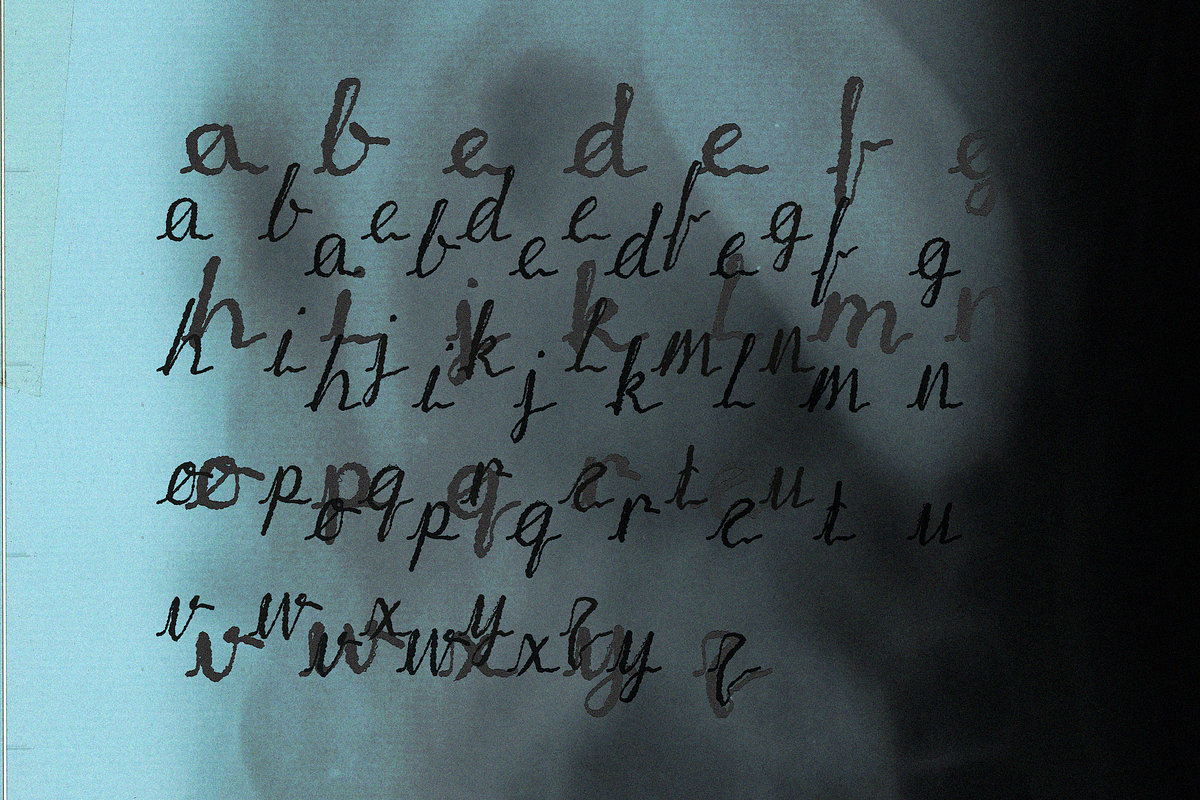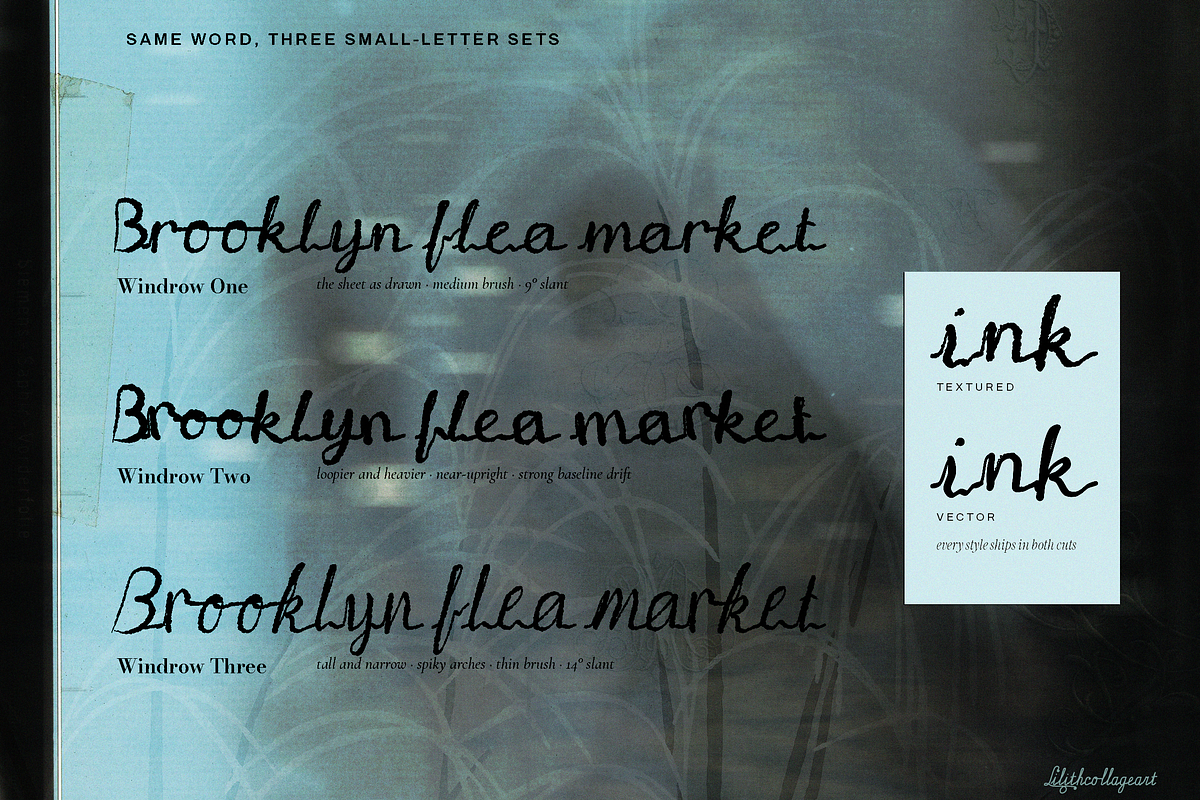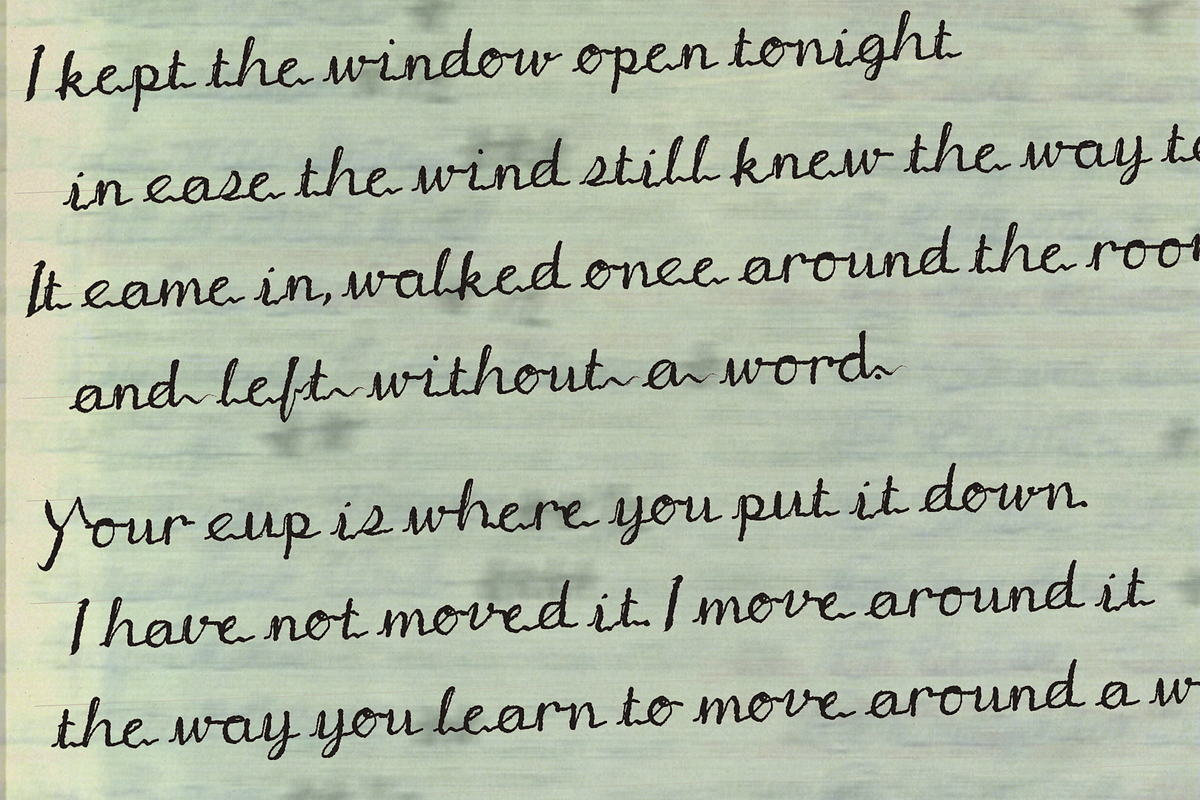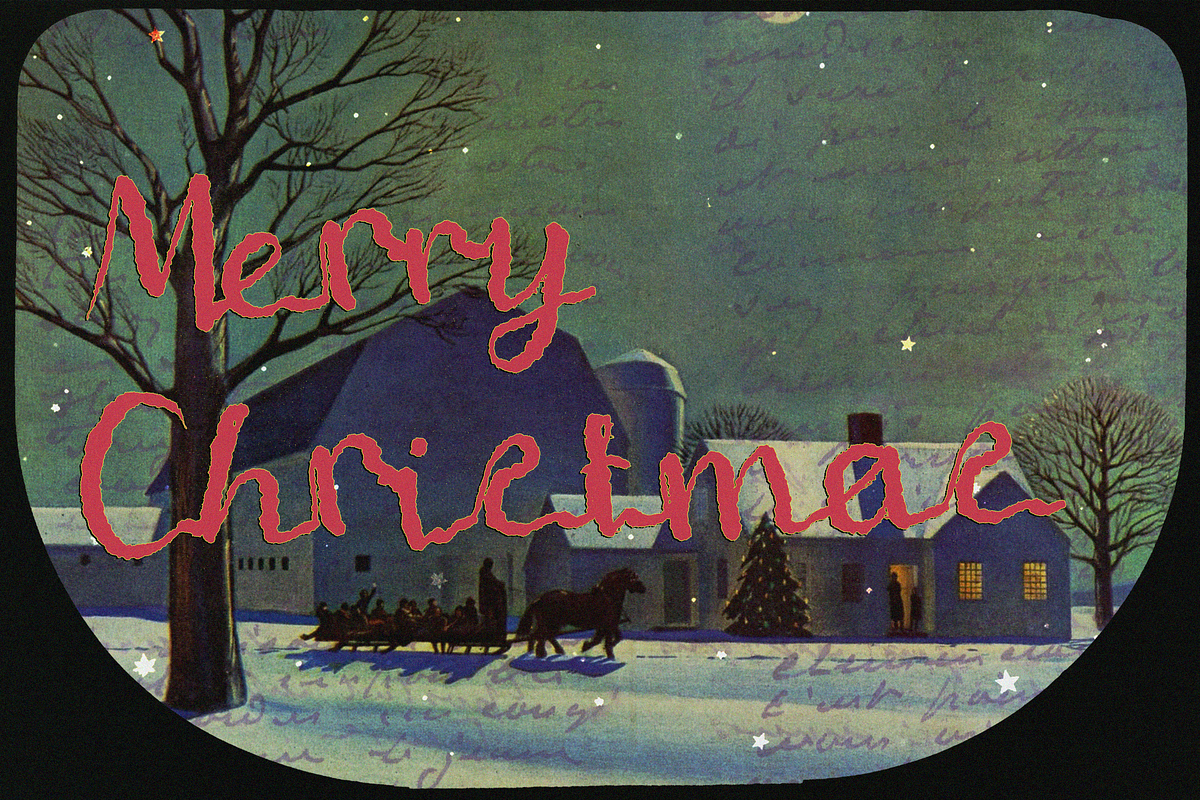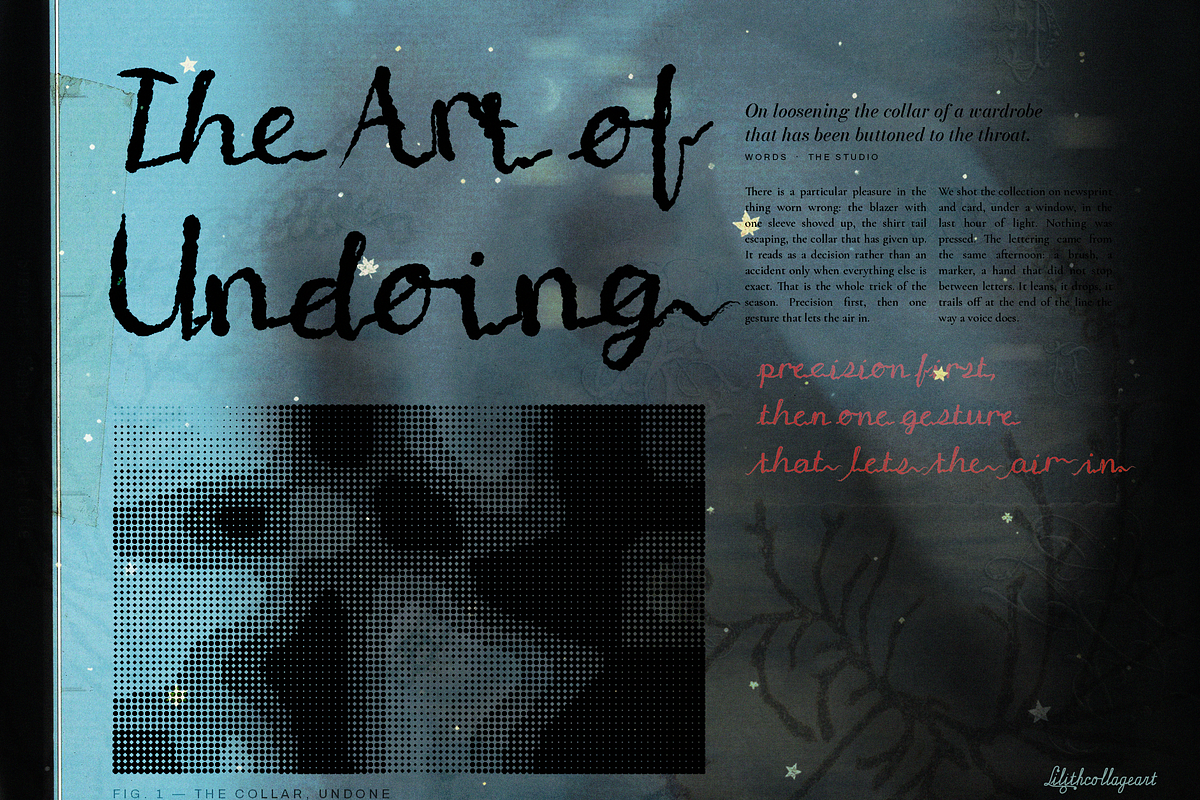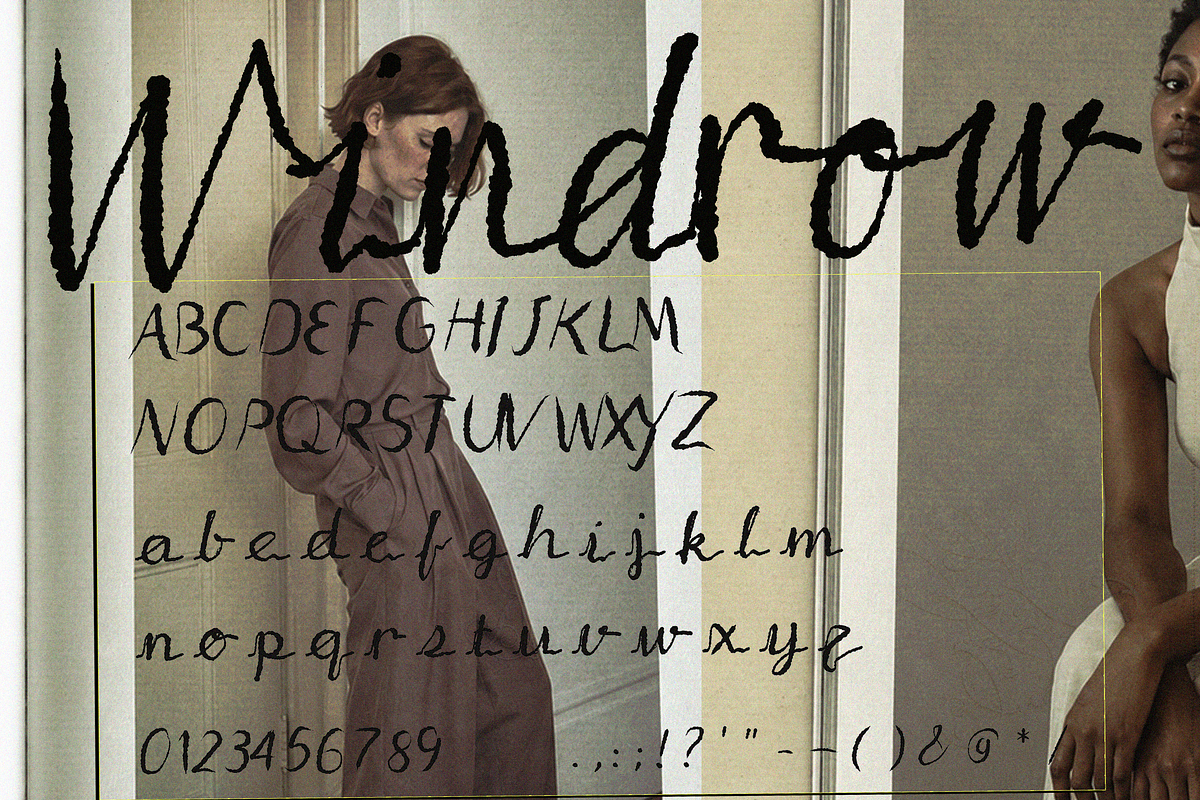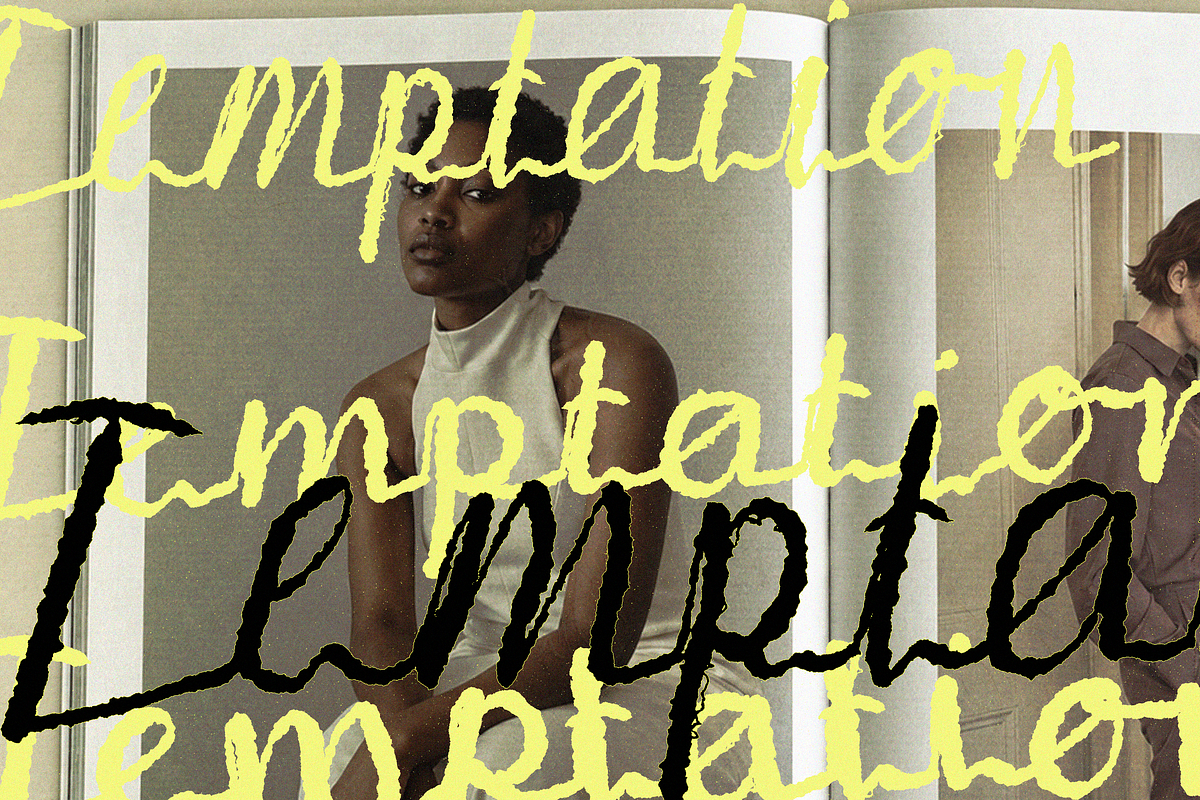
Windrow - Brush Cursive Font Family
Windrow is a brush-drawn connected cursive with the energy of a signature scrawled across a poster: thick-to-thin strokes that swell on the way down and thin on the way up, letters that sit at their own height and tilt, and long tails that sweep in from the bottom-left and trail off to the right. Every capital and every small letter joins the next in one continuous line.
Three hands, two cuts - six fonts
Each style has its own set of small letters, so you can pick the mood:
Windrow One - the original hand. Medium brush, gentle 9° slant.
Windrow Two - loopier and heavier. Looped ascenders, open descender loops, big round bowls, nearly upright with a strong baseline drift.
Windrow Three - tall and narrow. Spiky arches, a thinner brush, a 14° lean.
Every style comes as a Textured cut (charcoal grain, fibrous edges and dust, traced from the original renders) and a Vector cut (the same strokes with smooth edges for cutting machines, embroidery, large-format print and small sizes).
Connected by design
Small letters join at the baseline with no setup. Letters that finish high (b o v w r) hand over at the top, and F O P V W Y do the same, handled automatically by contextual alternates. Capitals link into the small letter that follows; when a capital stands alone or runs in all caps, it keeps its sweeping tail.
Made for
Fashion editorial and magazine spreads, pull quotes, poster and flyer headlines, album and book covers, branding for markets, cafés, florists and vintage shops, packaging, social graphics, wedding and event stationery, and logos that need to look hand-signed.
Character set
A–Z, a–z, 0–9 and 16 marks (. , : ; ! ? ' " - – ( ) & @ * /), plus link forms, tail forms and tailed capitals 210 glyphs per font. Latin only; no accented characters in this release.